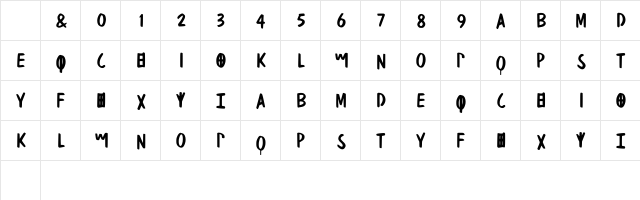
Complete Etruscan Dom Casual Regular glyph index. Displaying only characters natively supported by Etruscan Dom Casual Regular font.
Etruscan Dom Casual is a composed and adaptable typeface that performs quietly and consistently across a wide range of design contexts.